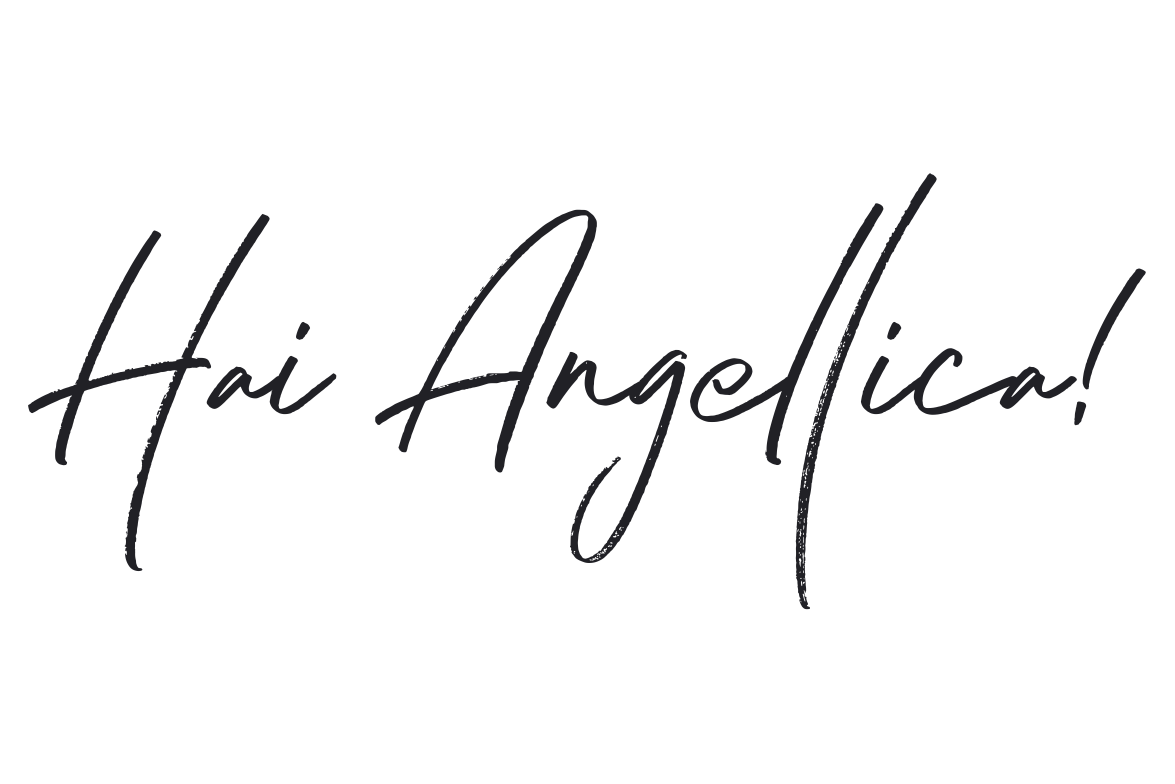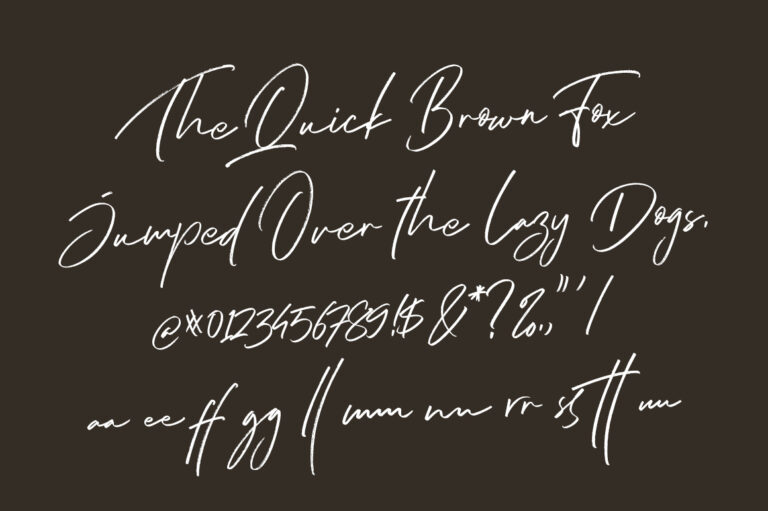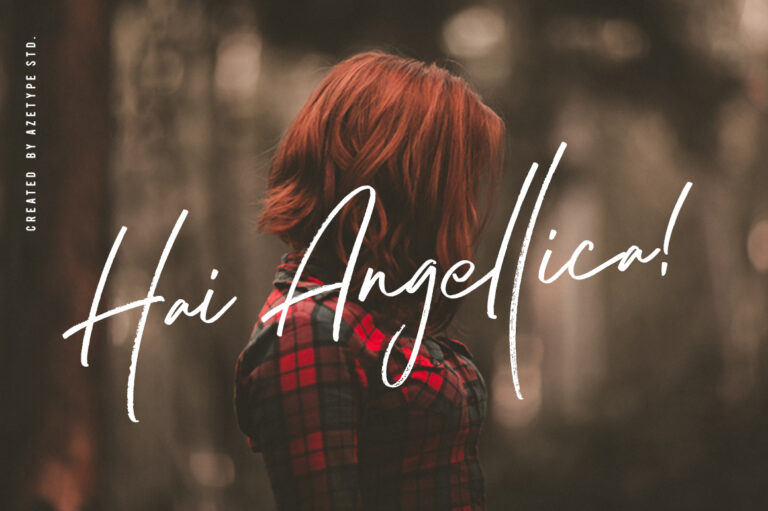
- Hai Angellica!
Presenting Hai Angellica!! A Handwritten Font with natural scratches. This font made with the perfect combining of each character. It looks original and can be used for all your project needs. Each glyph has its own uniqueness and when meeting with others will provide dynamic and pleasing proximity. This font can be used at any time and any project.
So, Hai Angellica Font can’t wait to give its touch to all your design projects such as quotes, wedding invitation, personal branding, promotional materials, overlay on the picture, product packaging, etc.
Besides that, Hai Angellica Font also has some ligature that gives a surprise when you type certain characters combining. The ligatures are aa ee ff gg ll mm nn rr ss tt uu